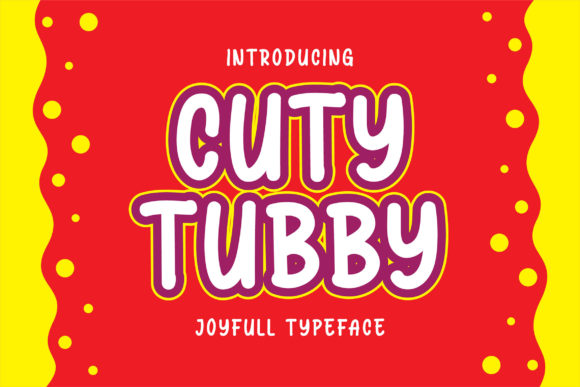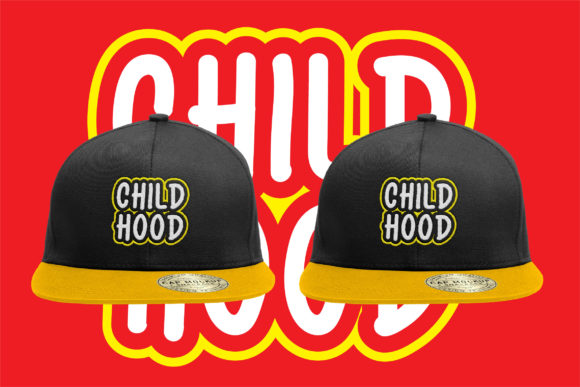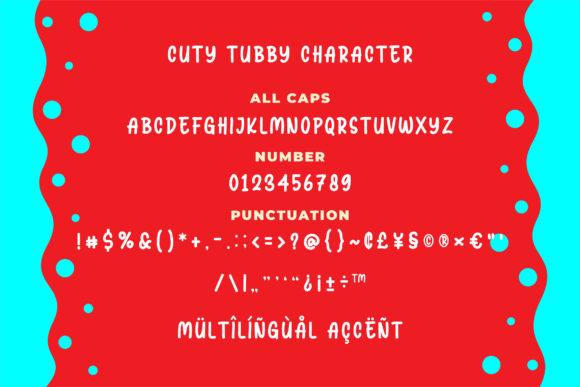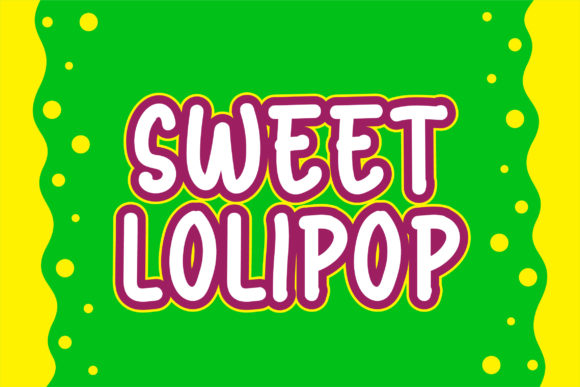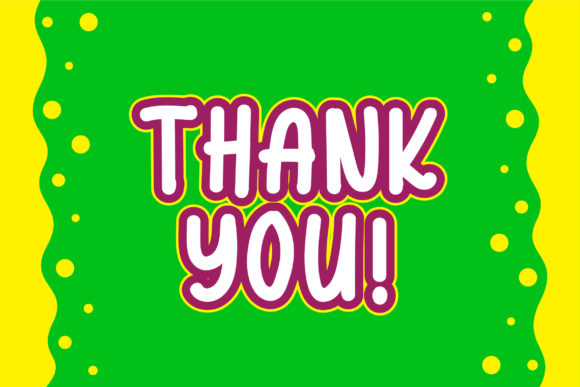
HomeScript FontsCuty Tubby Font Script Fonts Cuty Tubby Font FacebookXPinterestWhatsApp Cuty Tubby Font Poster 2 Cuty Tubby Font Poster 3 Cuty Tubby Font Poster 4 Cuty Tubby Font Poster 5 About Cuty Tubby Font Cuty Tubby is a freaky and fun script font with a cute twist. It will make any design idea stand out! DOWNLOAD ON CREATIVE FABRICAThis font is sold and delivered by Creative Fabrica. Font Canyon may earn a commission if you buy through this link. People also explored Deals Font Makam Font Gabriela Font Wasyek Font Orange Juice Font Bagela Font Sweet Butter Font Christmas and Friends Font Naminasae Font 327 0 TagsCuty Tubby Font Previous articleMithana Duo FontNext articleNew Narrative Font LEAVE A REPLY Cancel reply Comment: Please enter your comment! Name:* Please enter your name here Email:* You have entered an incorrect email address! Please enter your email address here Website: Save my name, email, and website in this browser for the next time I comment. Personal Use Free Stone Garden Personal Use Free Read more about this font Sweet Cake Personal Use Free Read more about this font Qiwqiw Personal Use Free Read more about this font Concrete Wall Personal Use Free Read more about this font BLOG Elegant Wedding Invitation Fonts – Handwritten & Script Fonts Elegant Wedding Invitation Fonts Your wedding day is one of the most important moments of your life, and every detail matters—including your invitation design. Our... How to Install and Use Fonts on Windows, macOS, and Web Projects Where to Buy American Fonts Online in 2024 Transform Your Website: Elevate Your Typography with 7 Best Web Font Generators